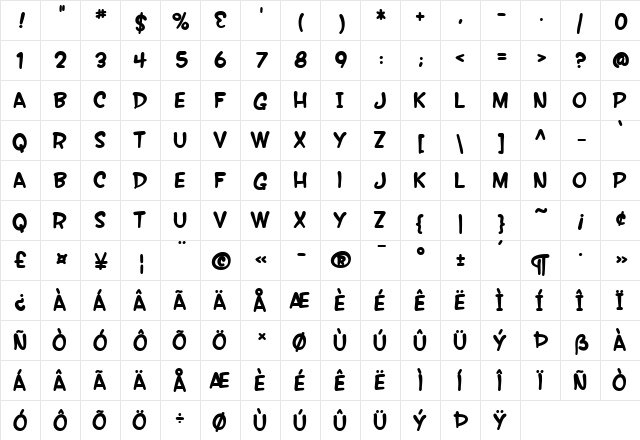
SF Wonder Comic Bold
Design Context for SF Wonder Comic Typeface
SF Wonder Comic has an approachable, lighthearted character — its loose, expressive forms are well-suited to children's content, casual branding, and fun-first design.
Well-suited to food and beverage brands with personality, educational materials, and fun-forward identities.
First published in 2008, this typeface is available in TrueType (TTF) format.
Font Pairing: Pairs well with a rounded or humanist sans for body copy, maintaining the friendly tone without relying on SF Wonder Comic to carry extended reading.
Pro Tip: Use SF Wonder Comic at larger display sizes where its expressive character can land. Pair with a clean, simple sans for body copy to maintain readability.